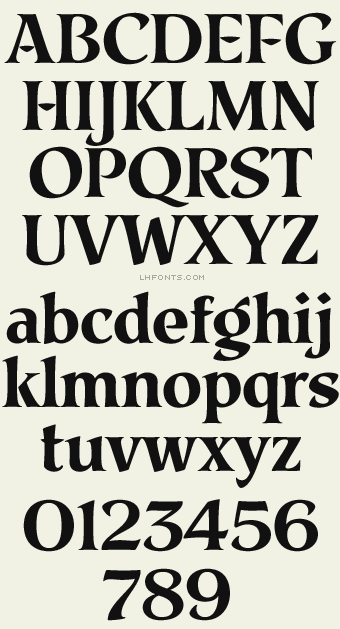
Great casual style that can be used at small sizes. Lined and solid versions work well together as both main and secondary text. Set includes 4 versions: Regular, Fancy, Inline and Fancy Inline. You might also like: Coffee Shop & Mystery Font.